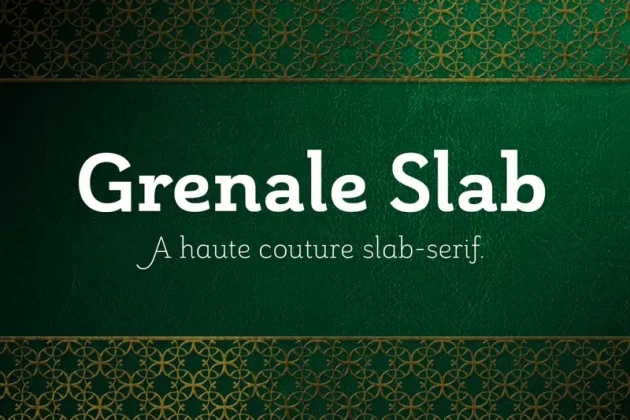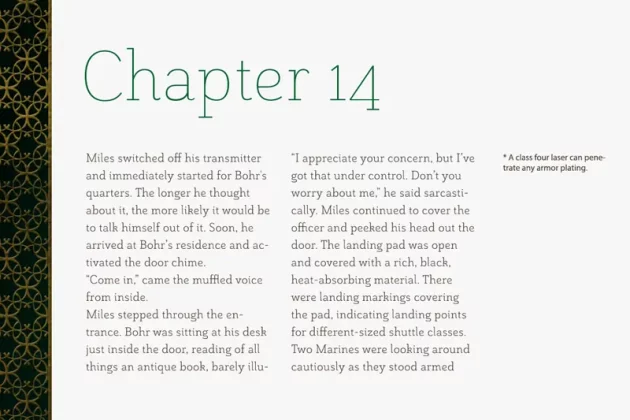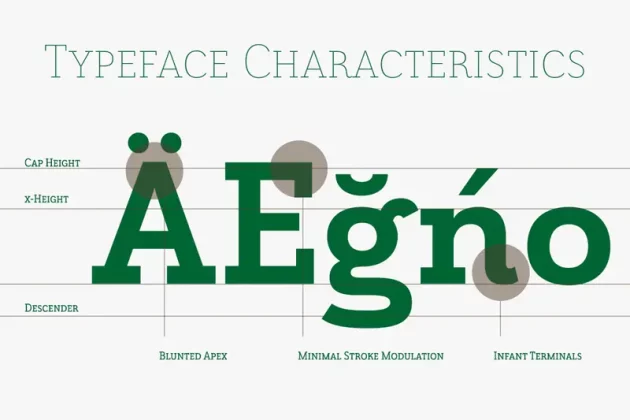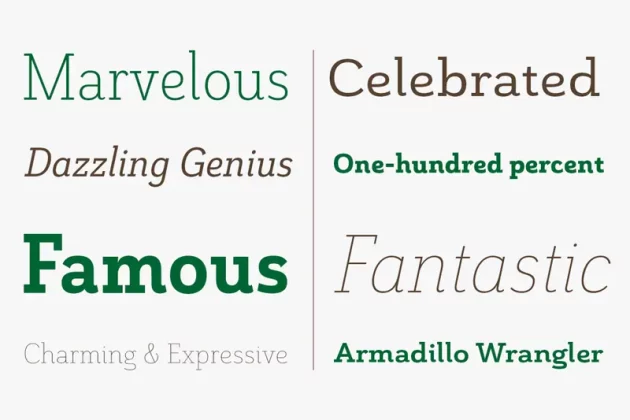
About Grenale Slab Font
Grenale Slab adds to the the new standard of elegance within the Grenale family. Not your typical slab, Grenale has some unique forms that give it a look all it’s own. This glamourous slab still draws much inspiration from Grenale’s Didone sans and its haute couture influence. Independently attractive, it’s balanced and poised, with well formed strokes.
Grenale Slab’s thin weights are simple but vibrant–elegant forms that naturally lend themselves to designer journals and high-end branding along with upscale applications. With added energy and power, the thicker weights give your work a firmer, statelier look. Grenale Slab’s upright versions are also matched by optically adjusted italics.
The fashionable typeface includes a multitude of alternates that may be accessed in any OpenType-enabled application. The stylish features include a large group of alternates, swashes, and meticulously refined details with ball terminals and alternate titling caps to accessorize the font. Also included are capital swash alternates, old style figures, and small caps. Peruse the PDF brochure to see these features in action. OpenType enabled applications such as the Adobe suite or Quark can take full advantage of the automatic replacing ligatures and alternates. This family also offers the glyphs to support a wide range of languages.
Any of Slab’s weights also provide a well-matched companion to its original counterparts, #2 and the original Grenale.
It’s time to think high-class. Graceful and assured, the carefully crafted forms of Grenale Slab step pleasantly onto each page with elegant charm. Include its range of alternate glyphs, and this chic font is a superb choice for bringing a far more refined look to your copy.